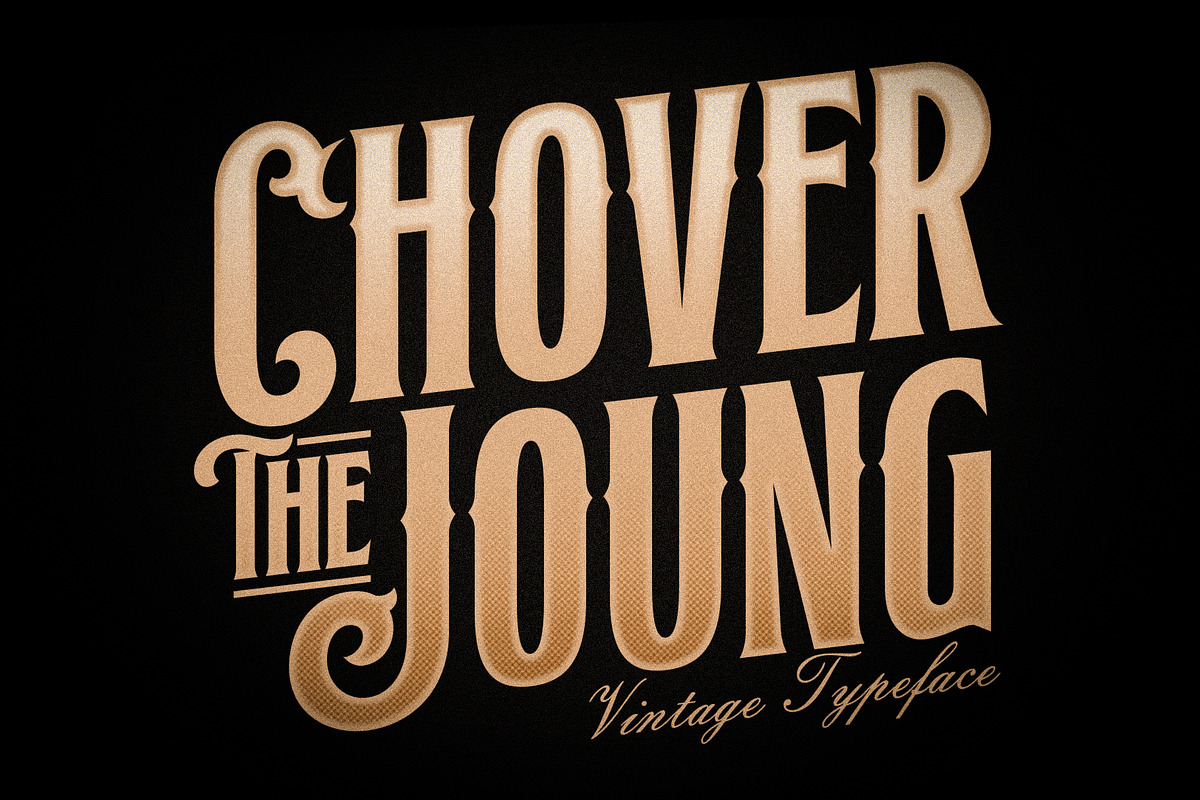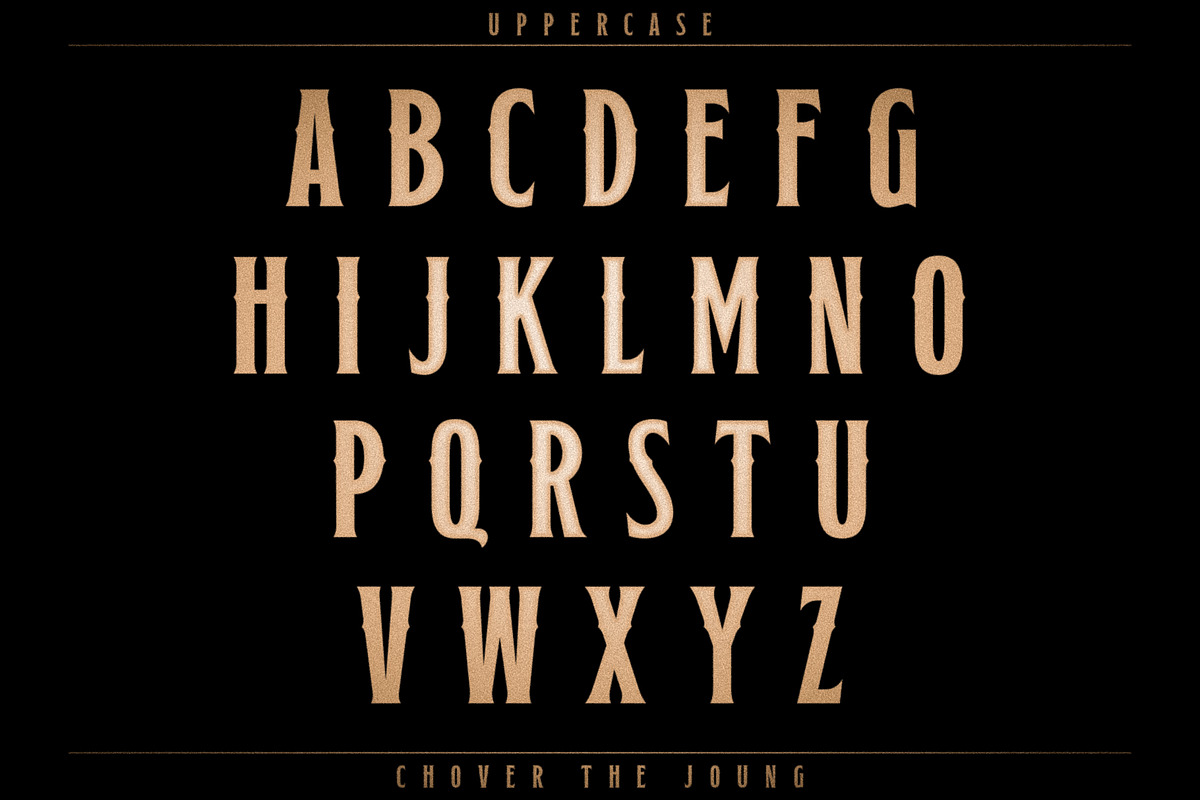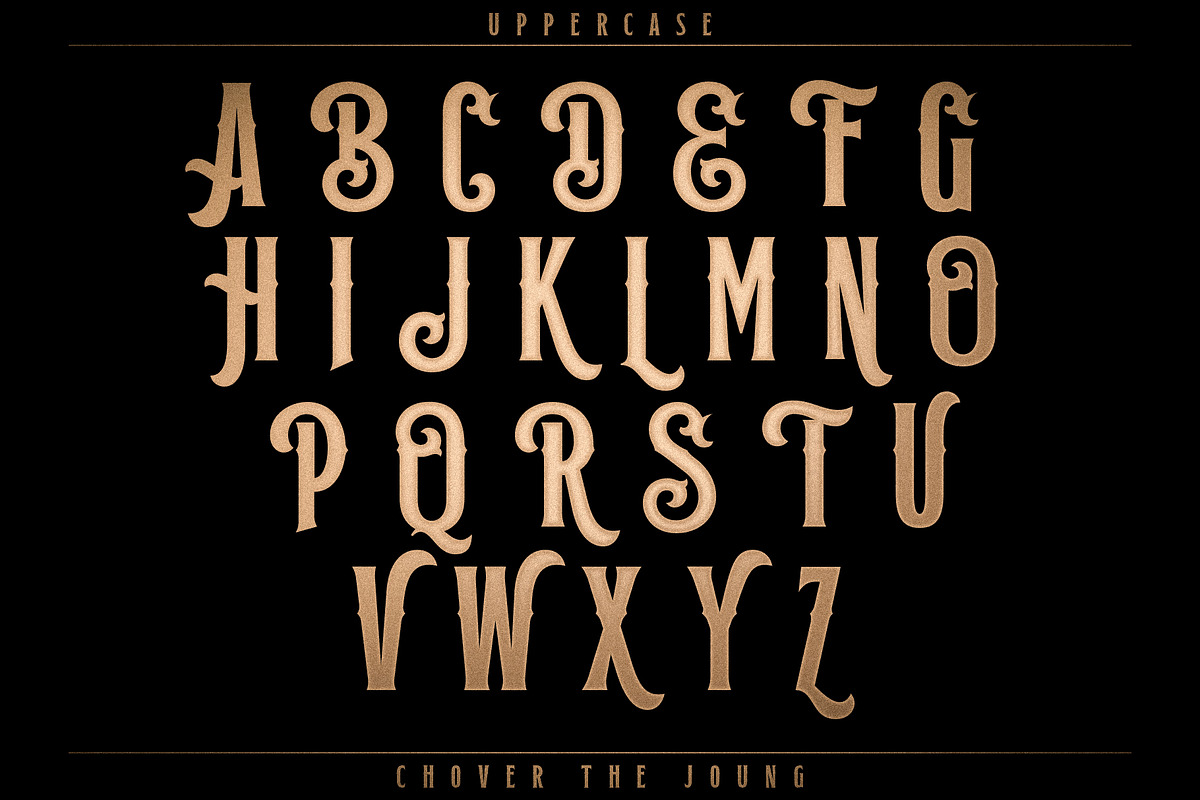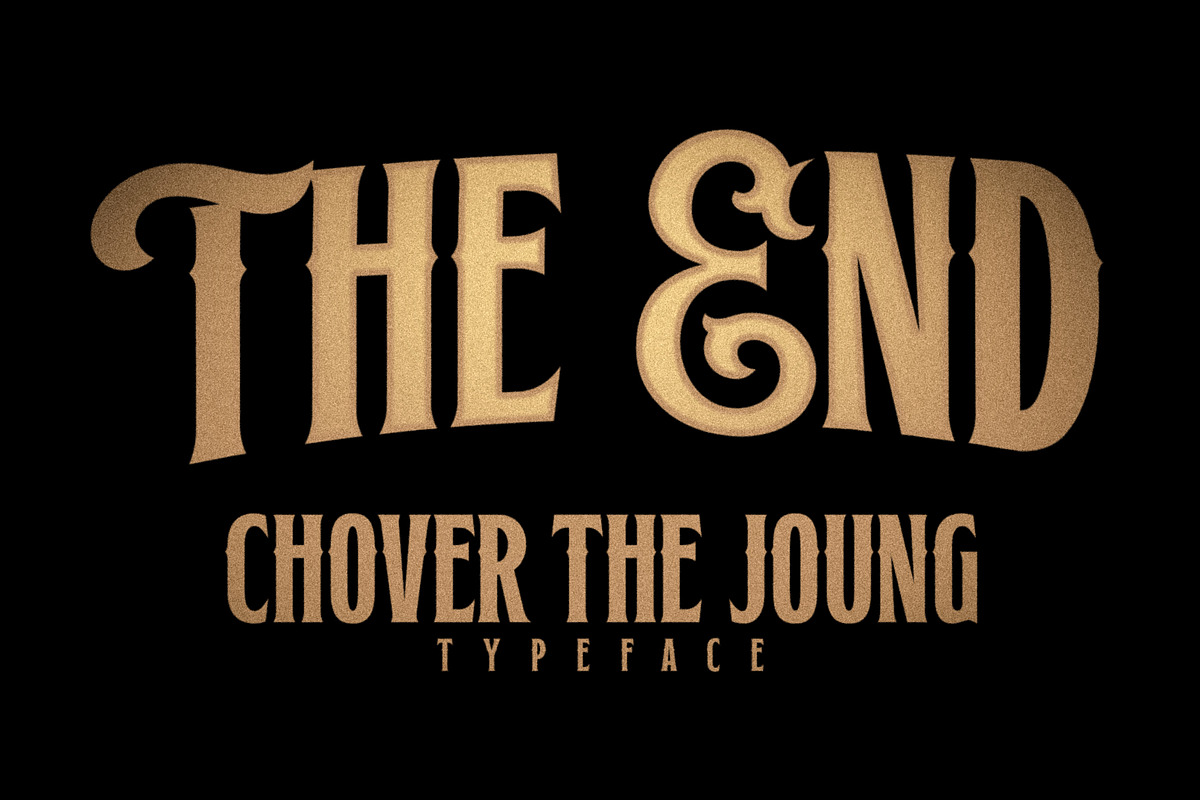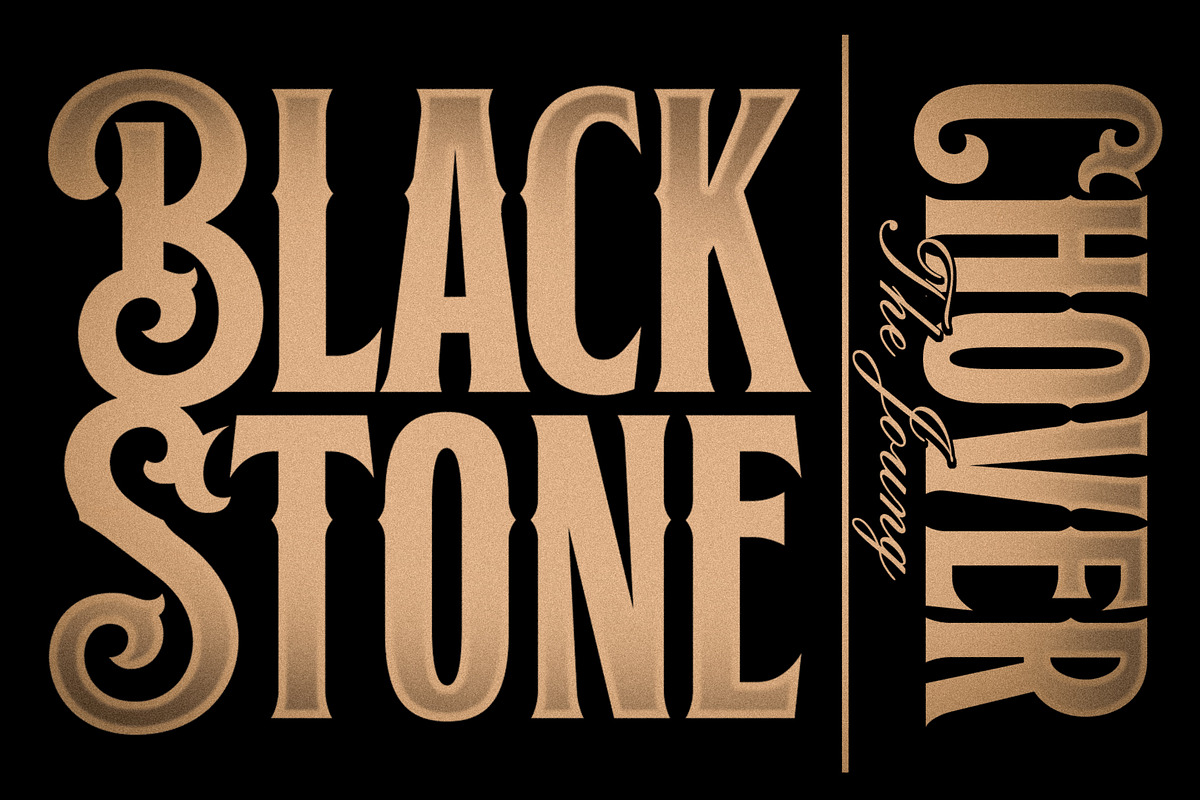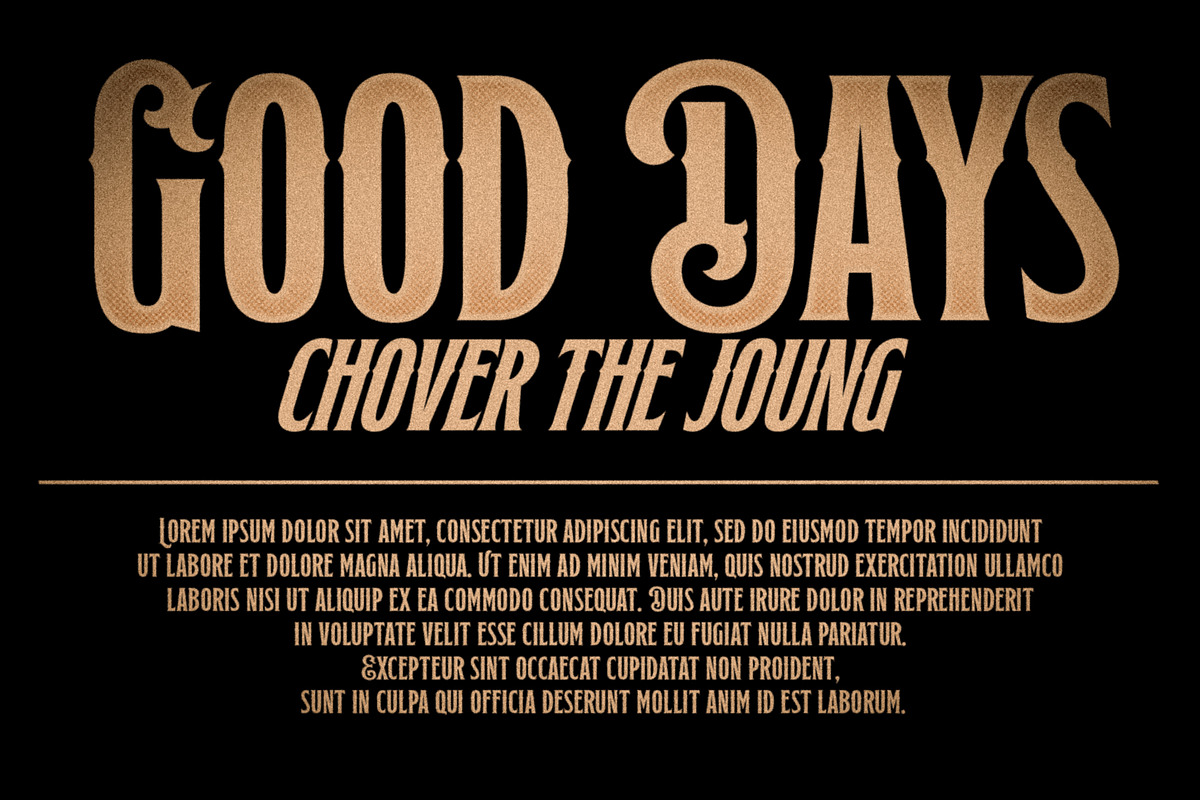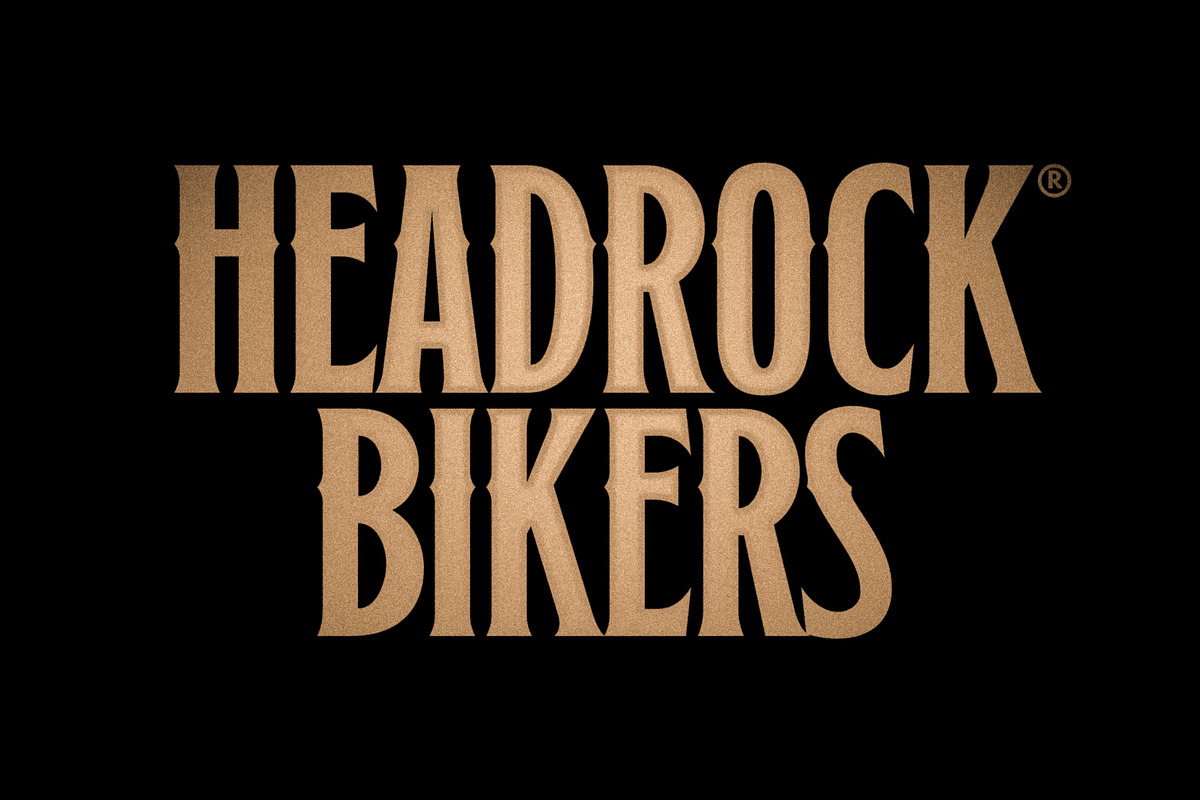
Chover the Joung
CHOVER THE JOUNG. There's come with 2 style font with much alternative inside. Suitable to create any branding, product packaging, invitation, quotes, t-shirt, label, poster, logo etc.